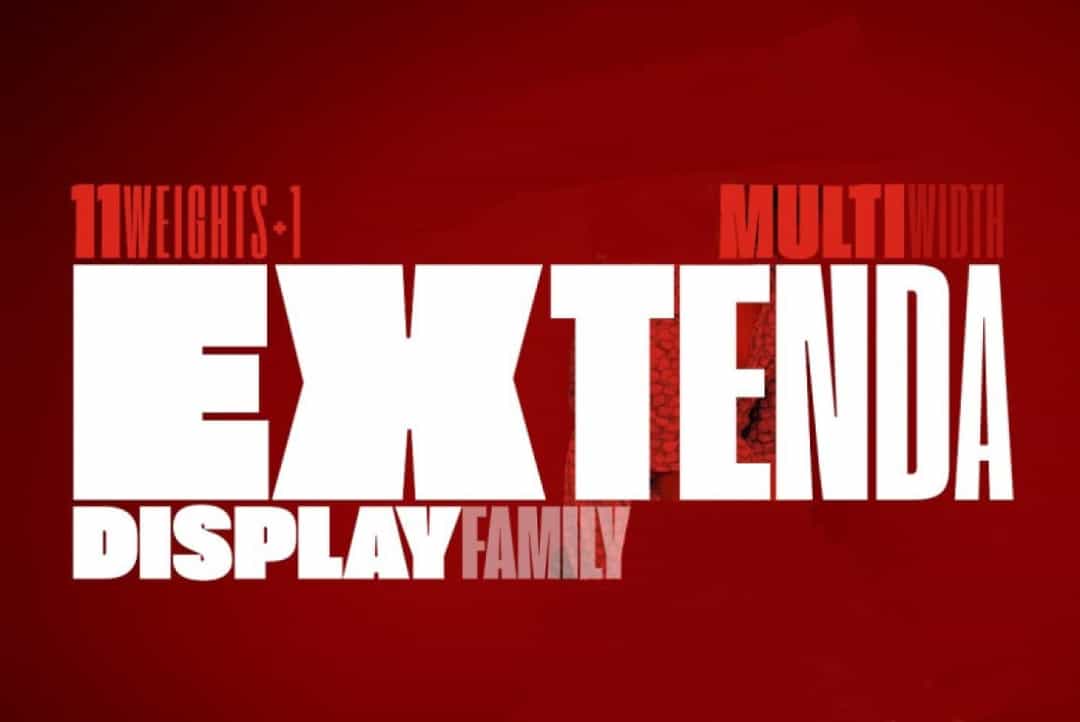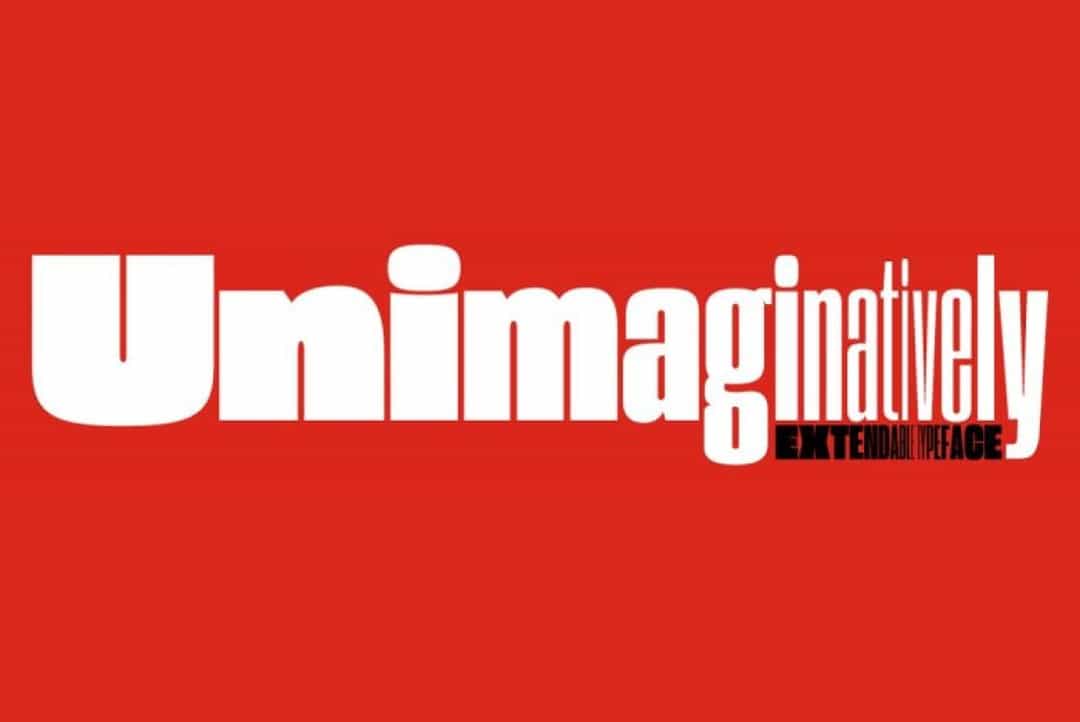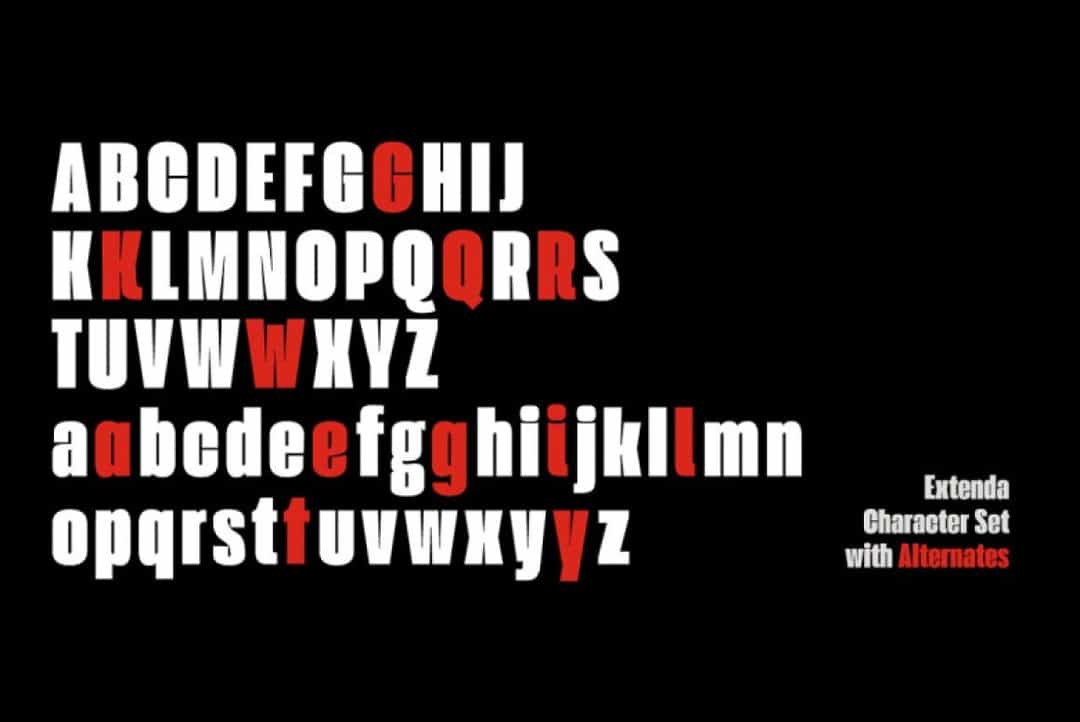
Discover Extenda Font, part of the Sans Serif Display collection—a versatile and unique font perfect for adding a personal touch to your projects. Download it for free and enjoy crafting designs with style, from invitations to social media posts. This font is available exclusively for personal use, giving you the freedom to create without limits. Unlock your creativity with Extenda Font today!
Extended Display Font was created by Francesco Canovaro, in collaboration with Andrea Tartarelli and Cosimo Lorenzo Pancini for the purpose of giving the designers a powerful tool that is versatile enough to create headlines and logos or display text that has closely spaced letters and requires the maximum space coverage.